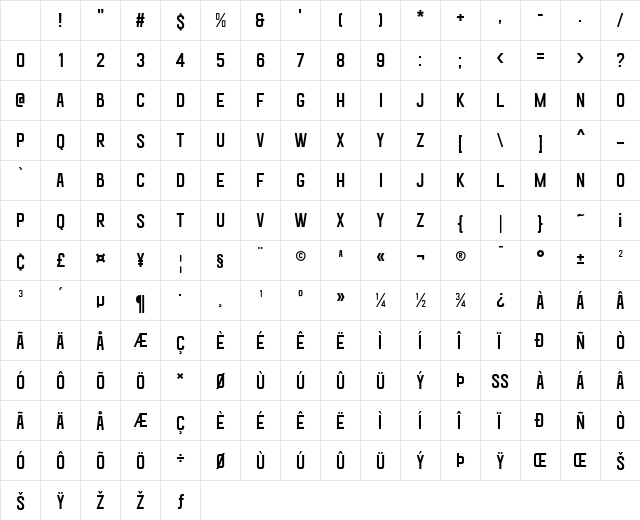
Complete Goldana Base glyph index. Displaying only characters natively supported by Goldana Base font.
Goldana is a composed and adaptable typeface that performs quietly and consistently across a wide range of design contexts.